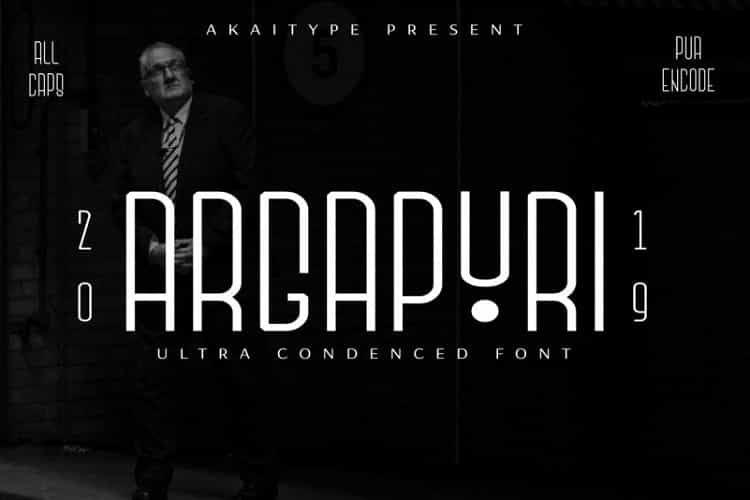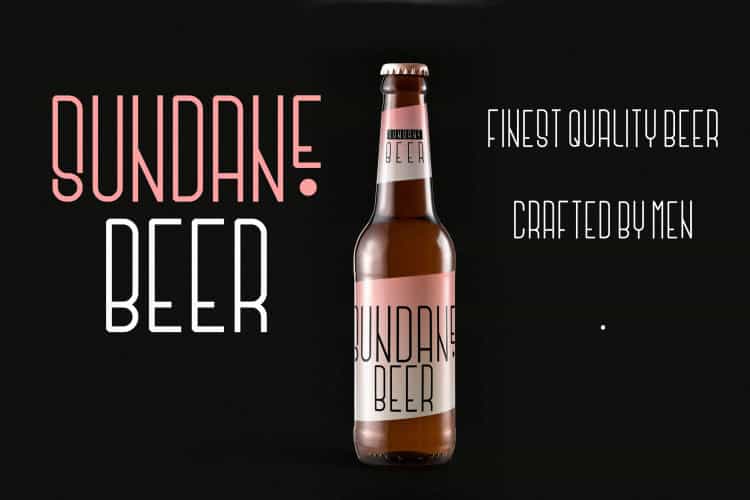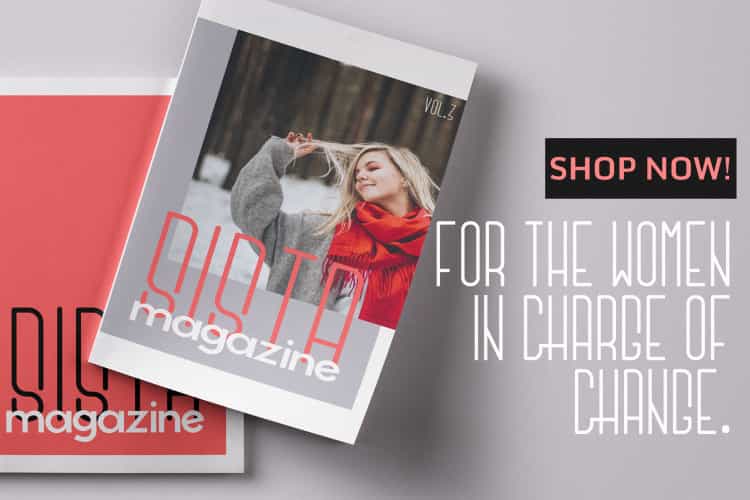
Argapuri is an Ultra condensed sans serif font that is tall in structure. Argapuri Ultra Condensed can develop something new and contemporary with the help of Argapuri font. It is suitable to use for headlines, quotes or logos, web, magazine covers and editorial design, print posters, signage, window shop design and so on.